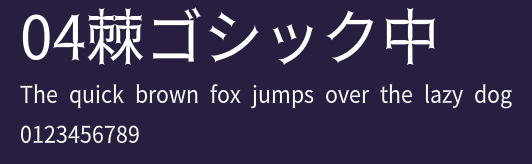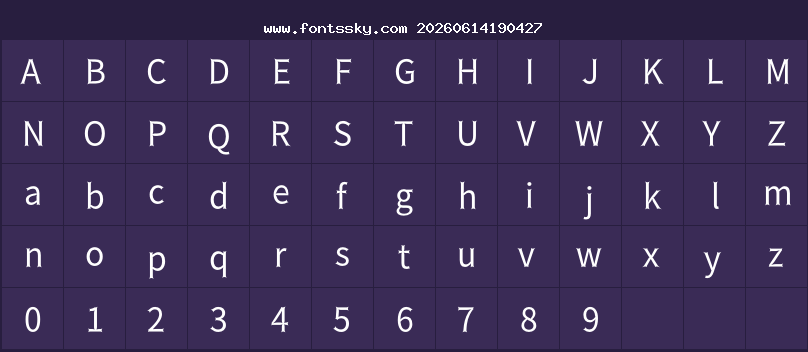
• Font Name: 04棘ゴシック中
• Font ID: 04棘ゴシック中
• Full Font Name: 04棘ゴシック中
• PostScript Name: 04TogeGothic-Medium
• Character Count: 8310
About 04棘ゴシック中.otf
04棘ゴシック中.otf is a modern, elegant sans-serif font designed for ultimate readability and visual harmony. Perfect for branding, headlines, web design, and print materials.